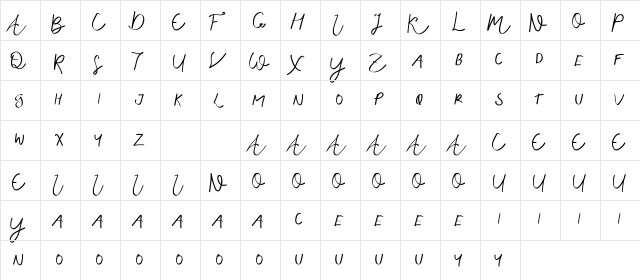
Nebula Starry Demo Regular
| Foundry | Edric Studio |
| Designer | Yasri Ainun N & Sarah Suci P |
Design Context for Nebula Starry Demo Typeface
Nebula Starry Demo is a composed and adaptable typeface that performs quietly and consistently across a wide range of design contexts.